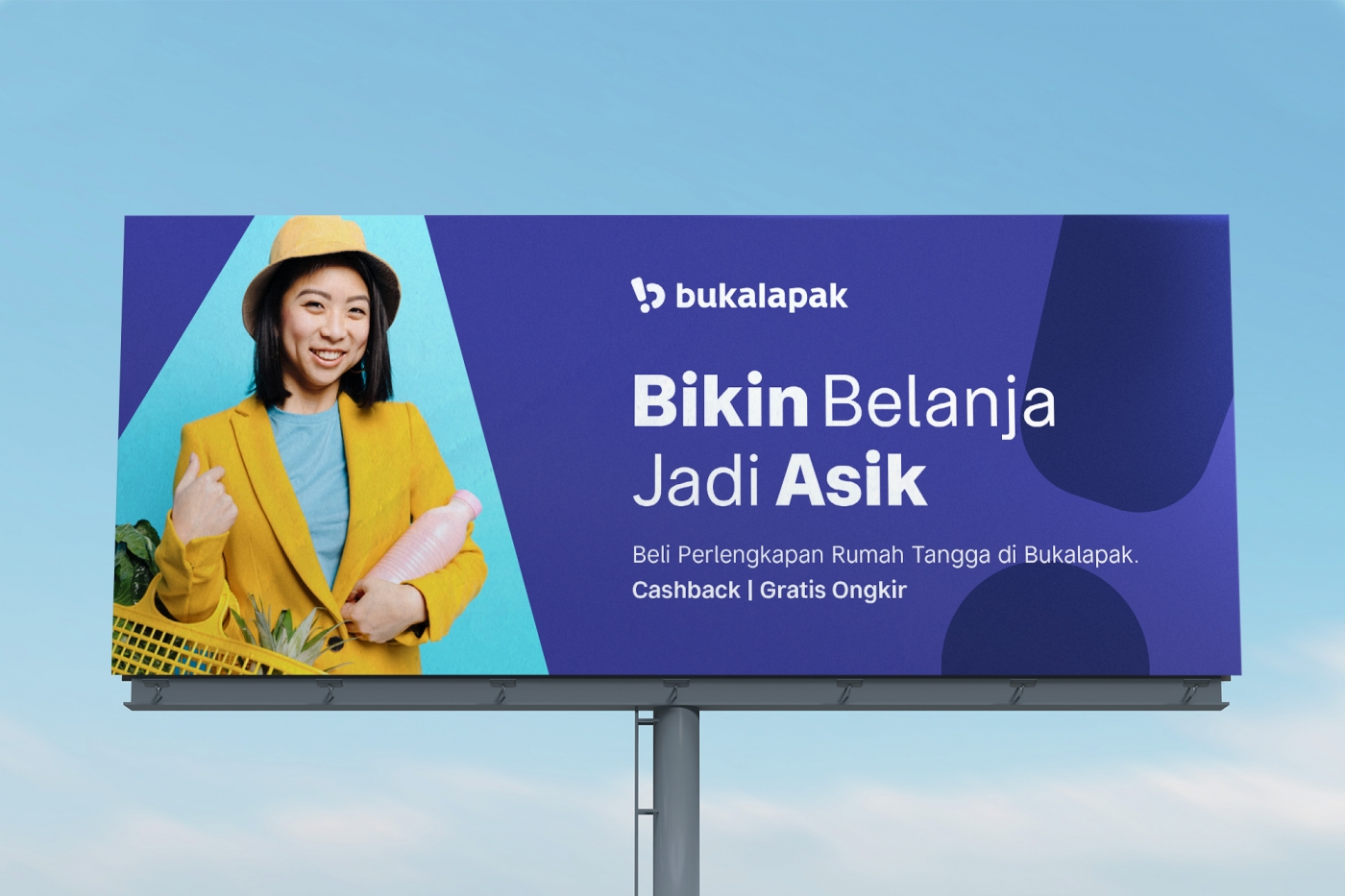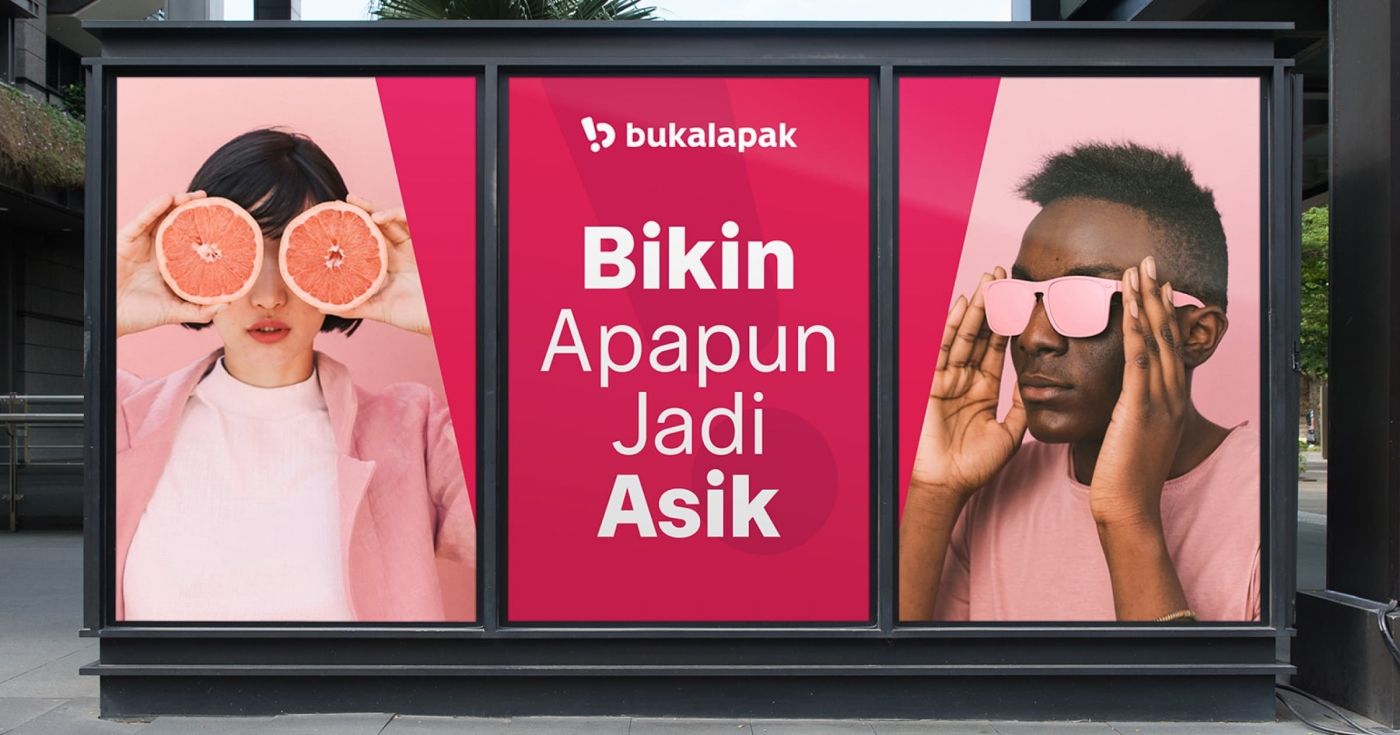
Buka Sans is Bukalapak’s brand new typeface, the typeface designed to expressing brand uniqueness, and slight quirkiness inspired by Bukalapak company’s spirit of fun. The custom typeface introduced as a new brand asset for Bukalapak’s new brand identity, it has an expressive personality and effective functionality to conveying brand communication. As the result, the typeface has ten styles ranging from Light for elegant communications to regular, medium, bold, for casual subheadlines and running text and extra bold to black to standout for big type treatments.
Family Name: Buka Sans
Design: Tokotype Studio
Year: 2020
Classification: Sans Serif
Styles: 22 (Display & Text)